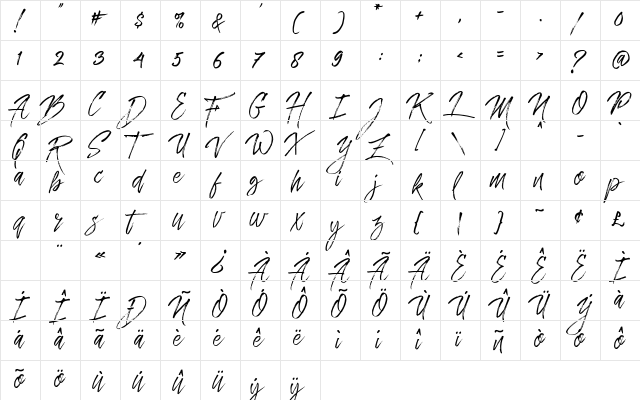
Dreamlight Typeface Free Demo Regular
| Foundry | Queentype |
| Designer | Queentype |
Design Context for Dreamlight Typeface Free Demo Typeface
Dreamlight Typeface Free Demo is a composed and adaptable typeface that performs quietly and consistently across a wide range of design contexts. Its slender proportions lend an understated elegance to any composition.